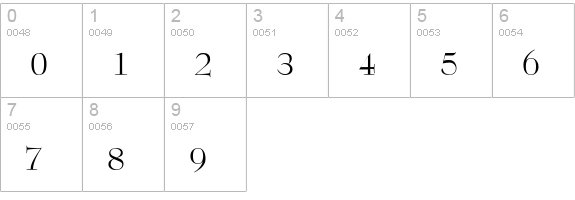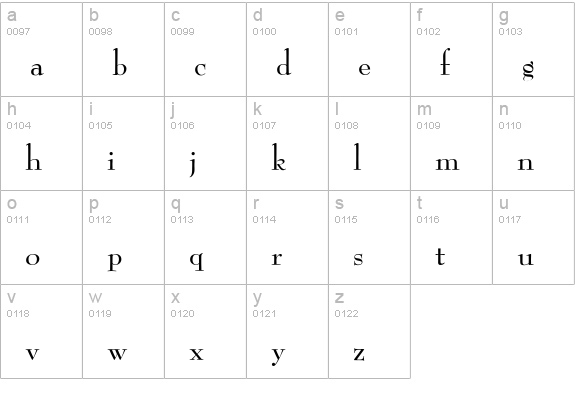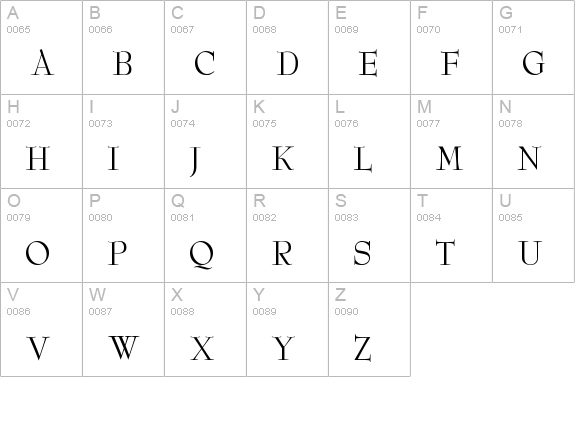
Introducing ReedFont, a stunningly versatile and visually captivating typeface that is perfect for adding a touch of elegance and sophistication to any design project. With its clean lines and impeccable craftsmanship, ReedFont effortlessly combines modernity with a timeless appeal, making it the ideal choice for a wide range of creative endeavors. But what sets ReedFont apart from other fonts on the market is its accessibility. This incredible font is not only visually striking, but it is also completely free to use. Yes, you heard that right - ReedFont can be yours at absolutely no cost. We believe in the power of creativity and in making it accessible to everyone, which is why we are proud to offer ReedFont for free download exclusively at FontsMarket.com. Whether you are a professional graphic designer, a seasoned typographer, or simply someone with a passion for beautiful typography, ReedFont is a must-have addition to your font collection. Its versatility knows no bounds, as it effortlessly adapts to various design styles and projects, from elegant wedding invitations and sophisticated branding materials to eye-catching advertisements and captivating social media graphics. Featuring a wide range of weights and styles, ReedFont offers endless possibilities for customization and creativity. With its bold and striking options, you can make a statement and demand attention, while the lighter and more delicate variations are perfect for adding a subtle touch of sophistication. The carefully crafted letterforms and seamless kerning ensure that your designs will always look polished and professional. So, why wait? Don't miss out on the opportunity to elevate your designs with the exquisite ReedFont. Download it for free today at FontsMarket.com and unlock a world of endless possibilities. Whether you're designing for print or digital, ReedFont will effortlessly elevate your projects and leave a lasting impression on your audience. Embrace the beauty of typography with ReedFont and let your creativity soar.